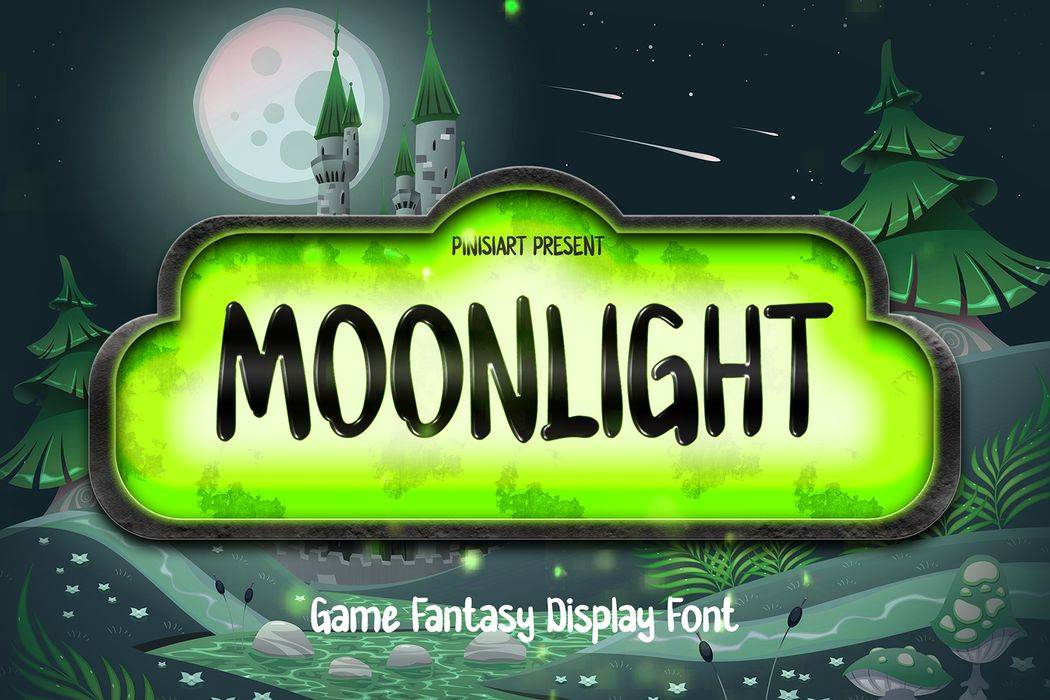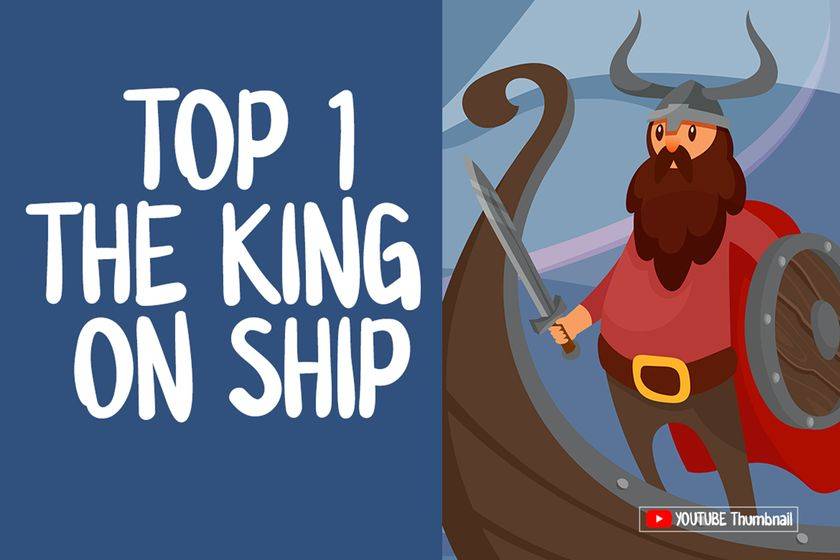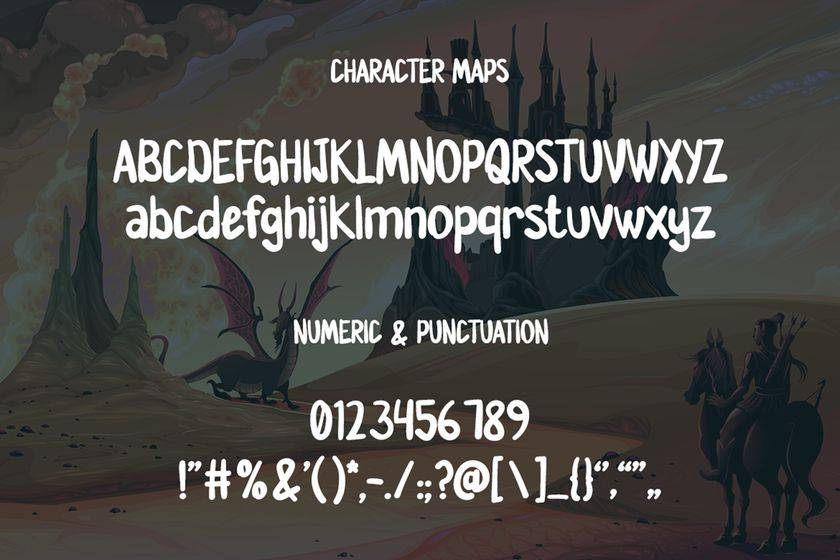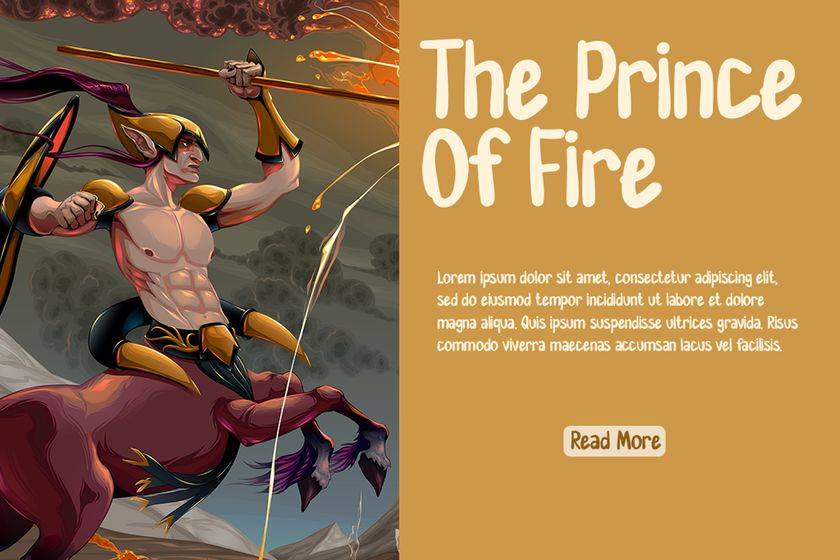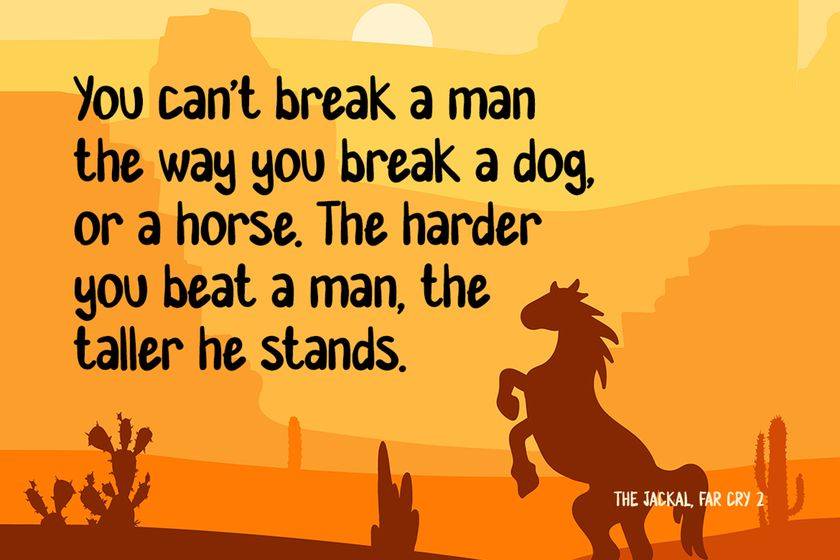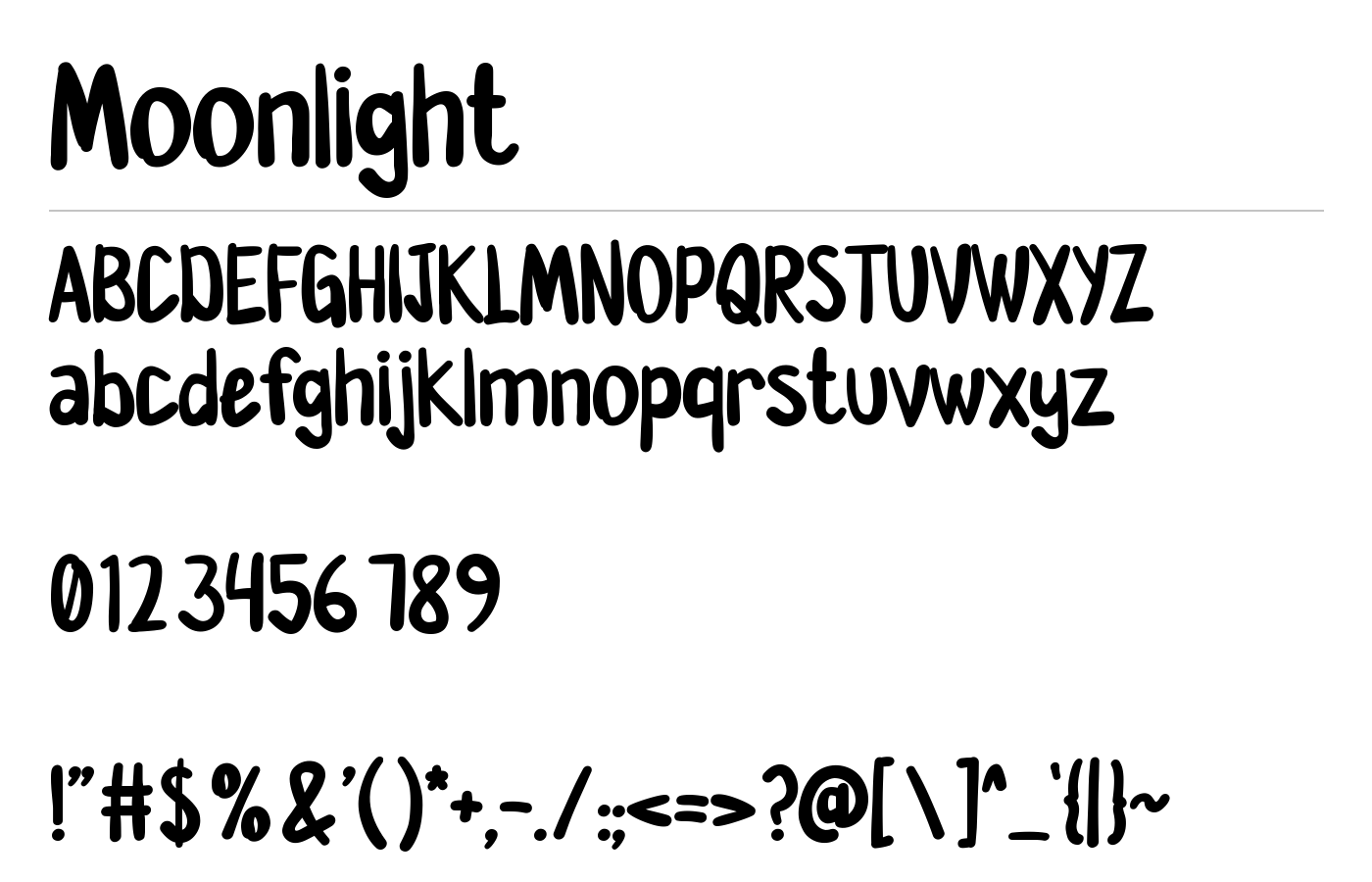
Moonlight is a playful, casual sans serif font with a hand-drawn feel, featuring slightly irregular, rounded letterforms that add charm and approachability. Its medium weight and balanced spacing make it suitable for friendly, informal designs like children's books, greeting cards, or fun branding, while its clear readability ensures it works well in headlines or display settings.
Moonlight Font
About Moonlight Font
| Font family | Moonlight Font |
| Release date | 2022-08-28 |
| Designer | PINISIART Team |